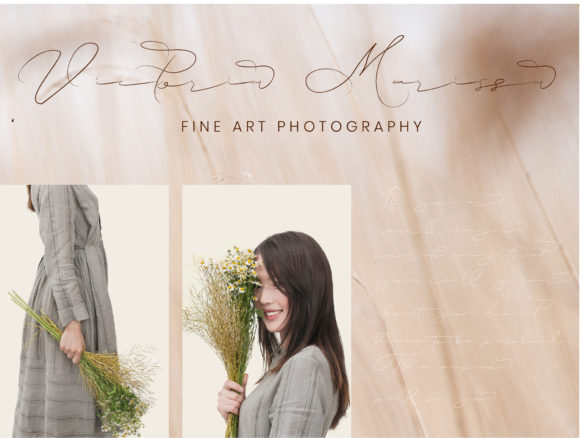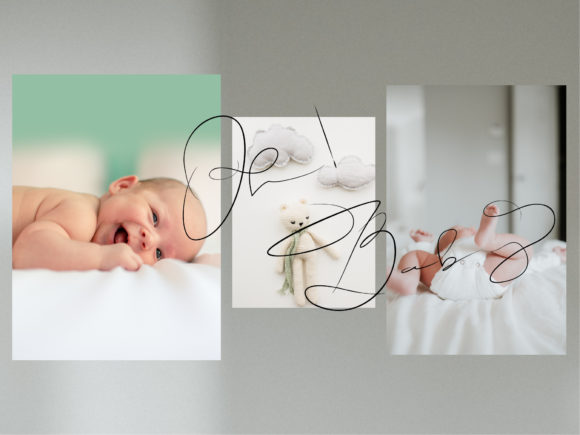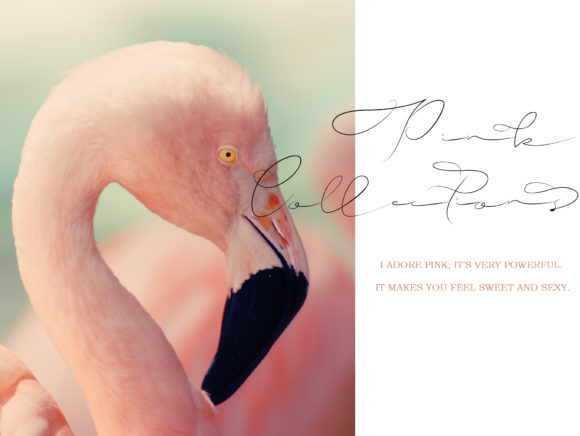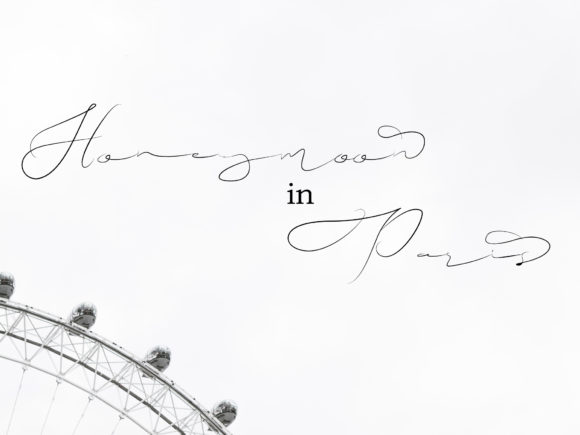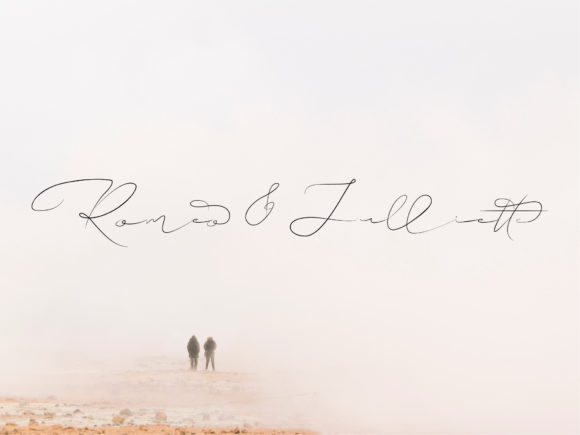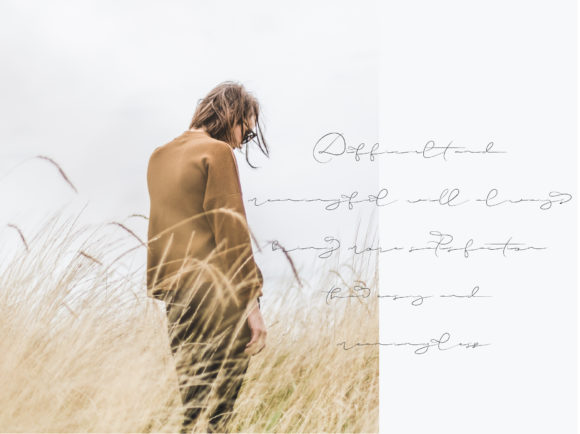
Introduction to Efothyro Font
You know that moment when you’re working on a creative project, and the perfect font can make all the difference? The one that adds a touch of elegance and sophistication, elevating your design from good to great? That’s exactly what the Efothyro Font does – it’s a modern and chic script that will give your design a personal twist.
As a designer, you’re always on the lookout for high-quality design resources that can help you stand out from the crowd. And let’s be honest, a beautiful font can be a game-changer. With its transparent background and sleek lines, the Efothyro Font is the perfect addition to any creative project. Plus, it’s free to download, making it an invaluable resource for designers of all levels.
Key Features of Efothyro Font
- High-quality, unique design ideal for creative projects requiring a distinctive touch.
- Includes a transparent background option, allowing for seamless integration with various design elements.
- Designed with high resolution in mind, suitable for use in print and digital applications.
- Perfect for designers seeking a high-quality, design resource that can elevate their creative project.
Honest Review: Efothyro Font
I recently had the chance to work with the Efothyro Font, and I’m excited to share my thoughts with you. As a designer, I’m always on the lookout for high-quality design resources that can elevate my creative projects. In this review, I’ll break down what I liked and what I didn’t about the Efothyro Font.
- ✨ The Efothyro Font offers a range of styles and weights, making it a versatile design resource.
- ✨ The font is highly customizable, allowing for seamless integration into any design project.
- ✨ The transparent background option is a nice touch, giving designers the flexibility to work with different backgrounds and effects.
- ⚠️ The font may not be suitable for all types of projects, particularly those requiring a more traditional or formal look.
- ⚠️ Some users may find the font’s unique style overwhelming or difficult to read.
Overall, I was impressed with the Efothyro Font’s quality and versatility. While it may not be perfect for every project, it’s definitely a valuable addition to any designer’s toolkit. Whether you’re working on a creative project or just need a reliable design resource, the Efothyro Font is definitely worth checking out.
The Efothyro Font is a high-quality design resource perfect for creative projects. With its unique style and transparent background, it’s an ideal choice for designers looking to add a touch of sophistication to their work.
To get the most out of the Efothyro Font, try using it in combination with other design elements, such as graphics and images. This will help to create a cohesive and visually appealing design.
Dancing Script is a lively, cursive font that’s perfect for adding a playful touch to your designs. It’s great for social media graphics, advertisements, or any project that needs a fun and energetic vibe. When to use: Social media graphics, advertisements, playful designs. How it compares to Efothyro Font: Dancing Script has a more fluid and dynamic feel compared to Efothyro Font’s static and bold style. Free download available.
Lobster is a unique, handwritten font that’s perfect for creative projects requiring a personal touch. It’s ideal for blog posts, social media graphics, or any design that needs a casual and approachable feel. When to use: Blog posts, social media graphics, casual designs. How it compares to Efothyro Font: Lobster has a more relaxed and informal look compared to Efothyro Font’s bold and professional style. Free download available.
Does the Efothyro Font support a transparent background?
Yes, the Efothyro Font supports a transparent background, making it ideal for creative projects that require a high level of design flexibility. With its transparent background, you can easily place the Efothyro Font over any background image or color without worrying about unwanted background elements.